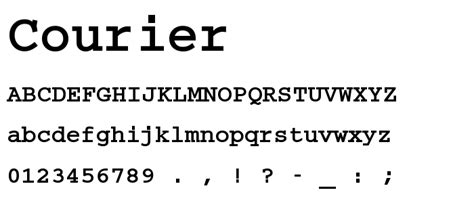
Discover and customize the font courier new and other similar fonts, ready to share in facebook and twitter. Explore courier designed by howard kettler at adobe fonts. Discover and customize the font courier new and other similar fonts, ready to share in facebook and twitter. A monospaced typeface with 4 styles, available from adobe fonts for sync and web use. Click to find the best 16 free fonts in the courier style. Web create stunning blue 3d fonts that pop off the page. Every font is free to download! Web imitate older times in your texts with our typewriter fonts for sober and clear works. Web looking for courier fonts? Adobe fonts is the easiest way to. Web courier | adobe fonts.